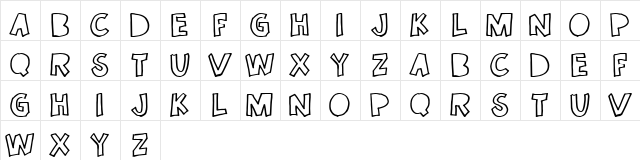
Once in a while Regular
Design Context for Once in a while Typeface
Once in a while is a composed and adaptable typeface that performs quietly and consistently across a wide range of design contexts.